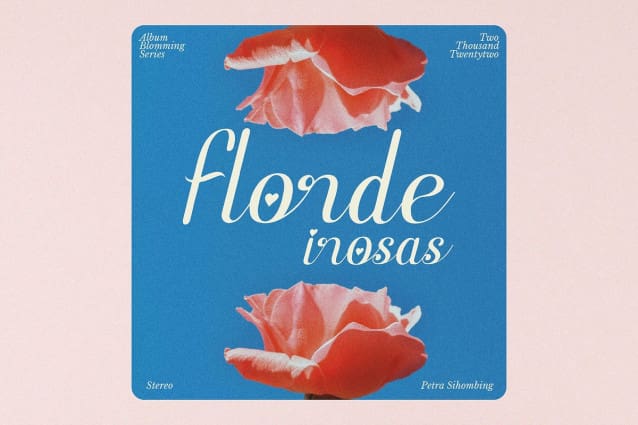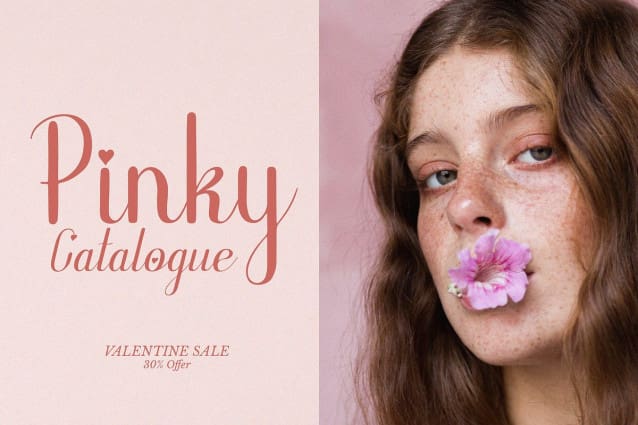
Enfiyali Alovelly Font
Enfiyali Alovelly Font | Love Modern Script, from Denustudios, suitable for any projects such as: logos, branding projects, homeware designs, product packaging, mugs, quotes, posters, shopping bags, t-shirts, book covers, name card, invitation cards, greeting cards, label, photography, watermark, special events, and all your other lovely projects that need a Love Modern Script taste.